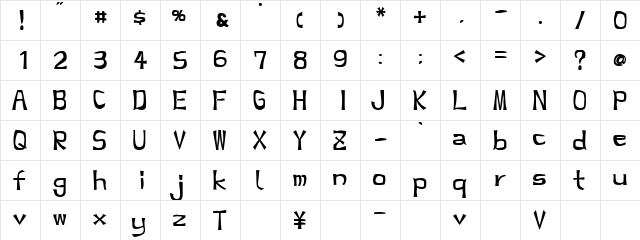
resra Regular
Design Context for res�ra Typeface
res�ra takes a measured approach to typography — its balanced proportions and neutral character make it a reliable workhorse for both digital and print work.